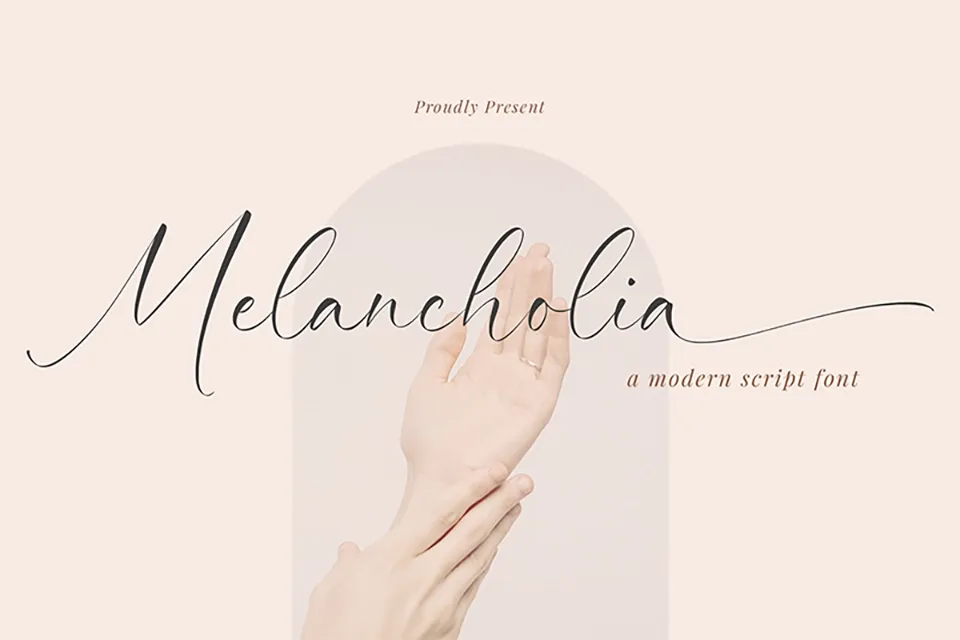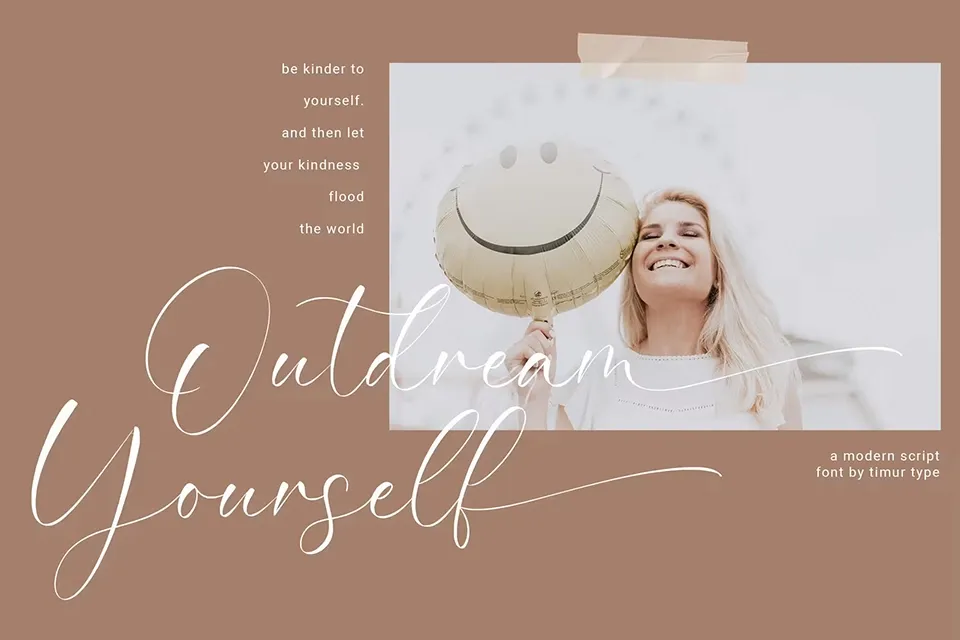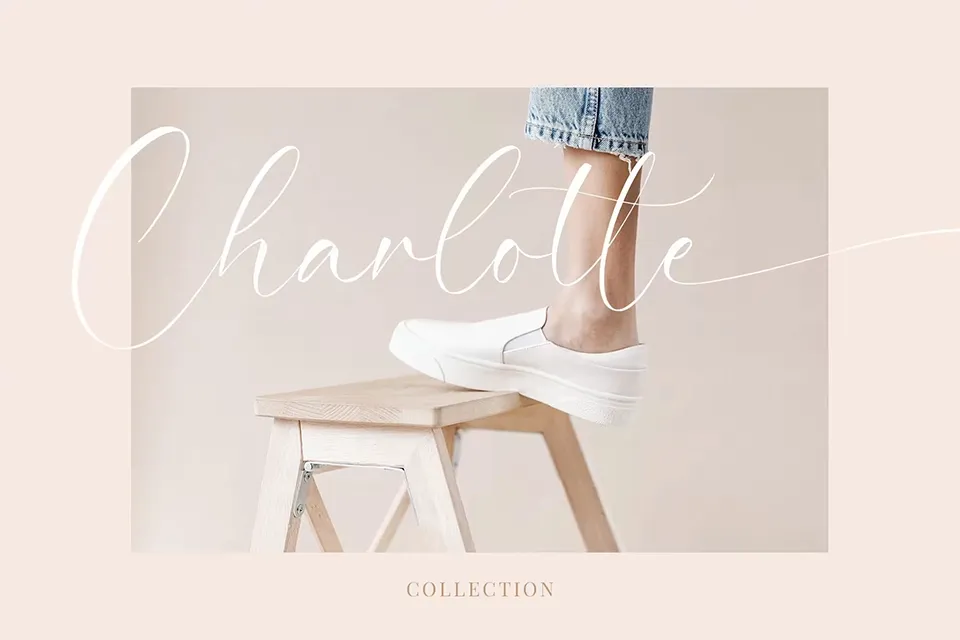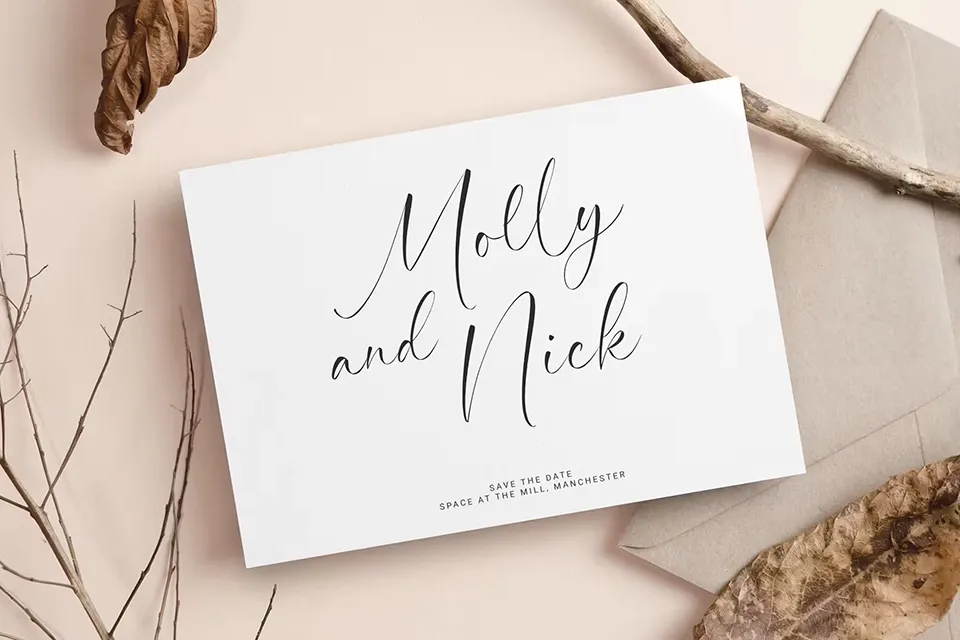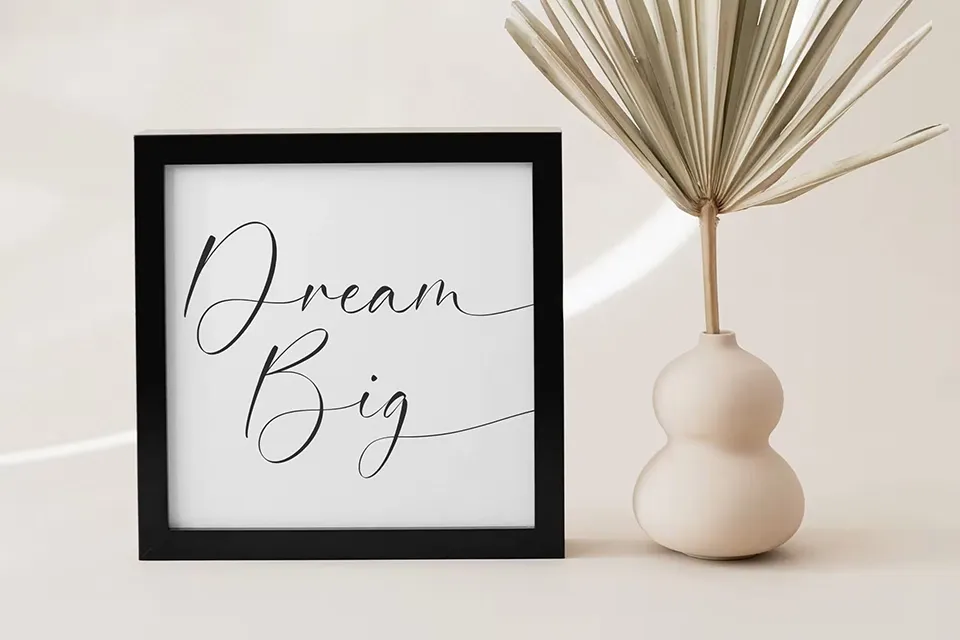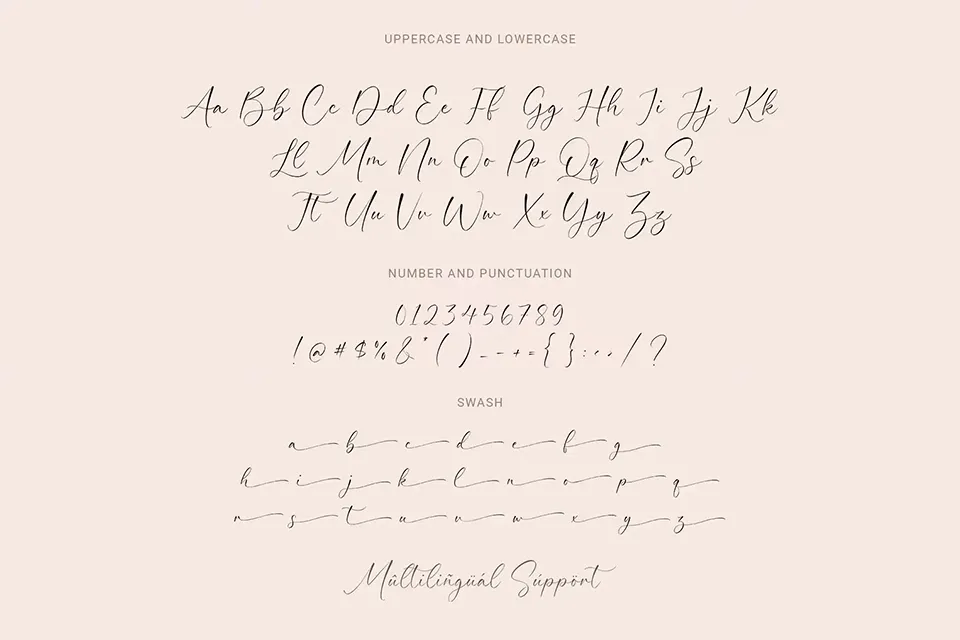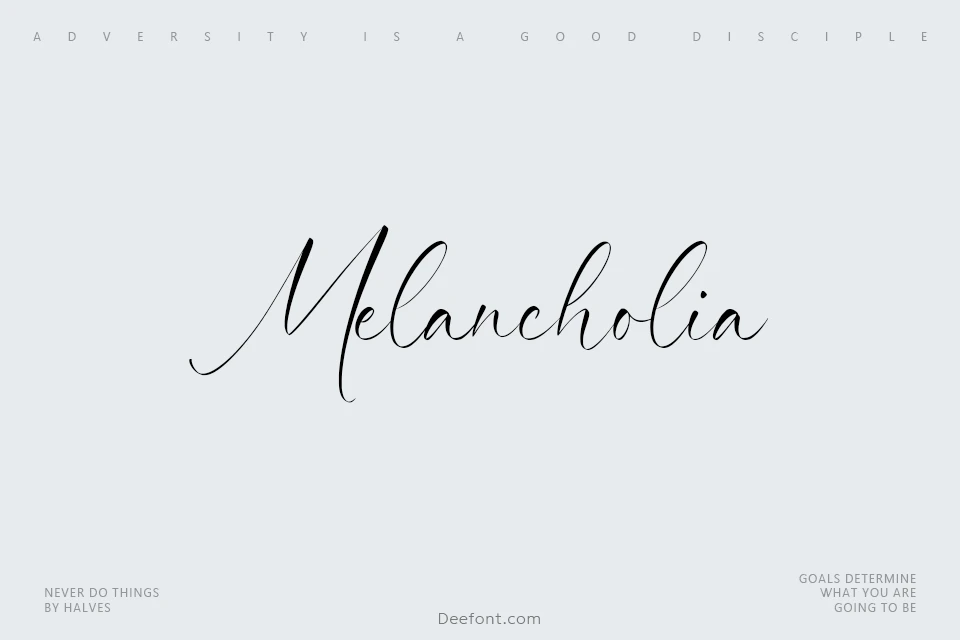
Melancholia Font
Melancholia is described as a modern script font, featuring elegant and flowing letterforms that emulate sophisticated handwriting. Its delicate strokes possess subtle variations in weight, contributing to a refined and graceful appearance. With smooth connections and expressive swashes, this font exudes a romantic and chic sensibility. Melancholia is ideal for designs demanding a personal yet polished touch, such as wedding invitations, upscale branding, logos, feminine signatures, and headlines that require fluidity and elegance. It brings a gentle, sophisticated charm to any creative project.